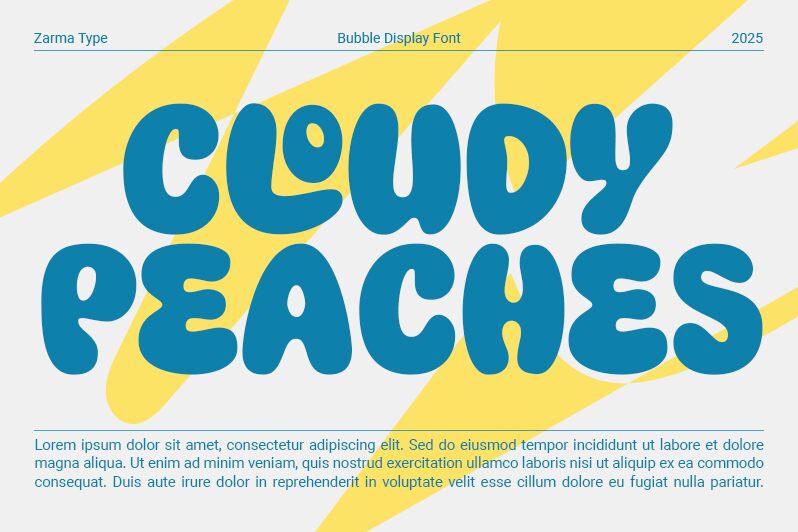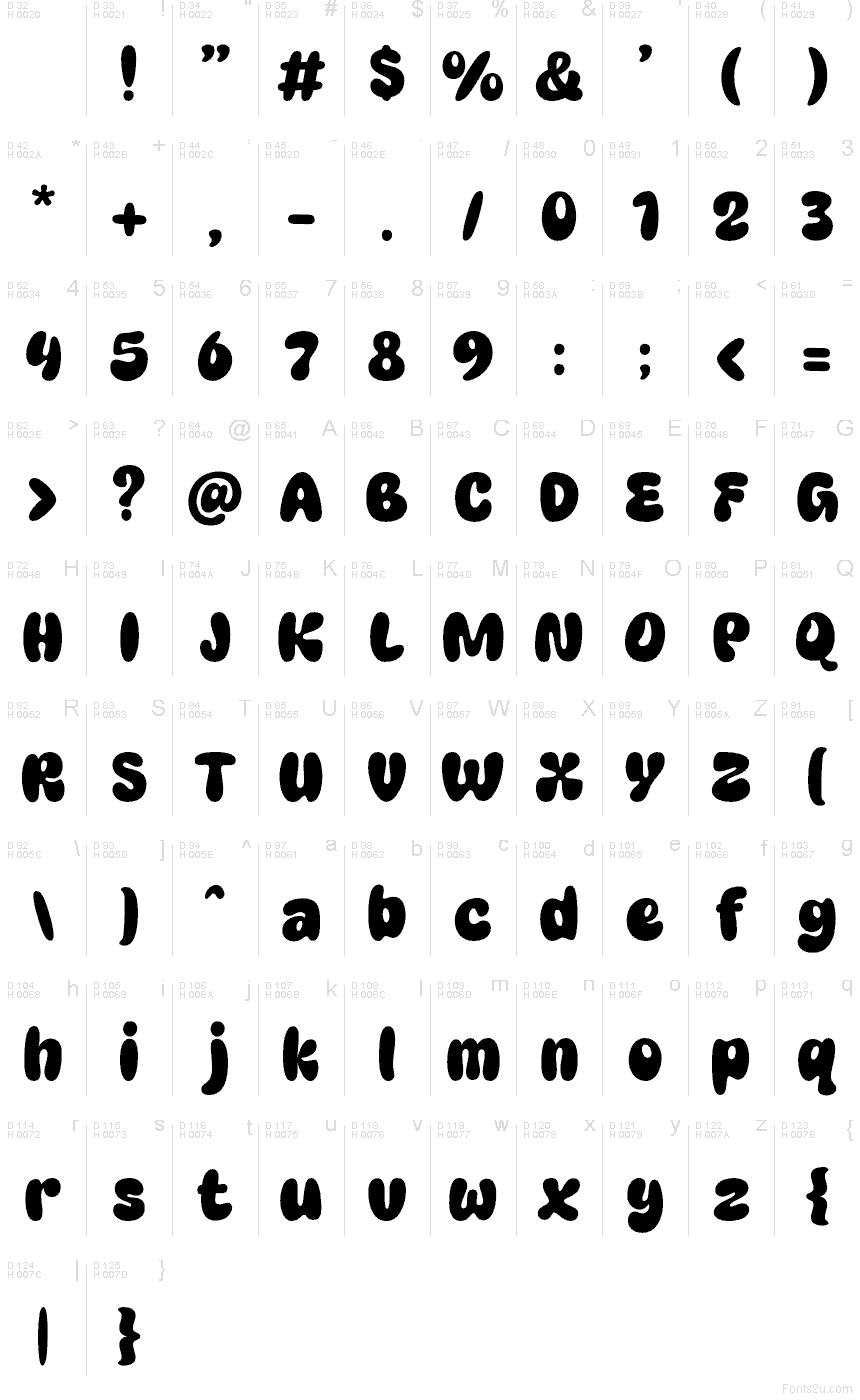
Cloudy Peaches font by Azzam Ridhamalik of Zarma Type pours on the sweetness with puffy, squishy letterforms that feel like they were drawn with a thick marker and rounded off by hand. It’s a free cartoon font, and the typeface’s bouncy rhythm and chunky weight stay readable even when you want maximum charm.
Using Cloudy Peaches, you’ll get instant personality on kids’ branding, snack packaging, stickers, YouTube thumbnails, playful app splash screens, classroom posters, and party invites. Keep it a touch oversized so the soft counters don’t clog, and pair it with a clean geometric sans for captions to let this free font do the talking.